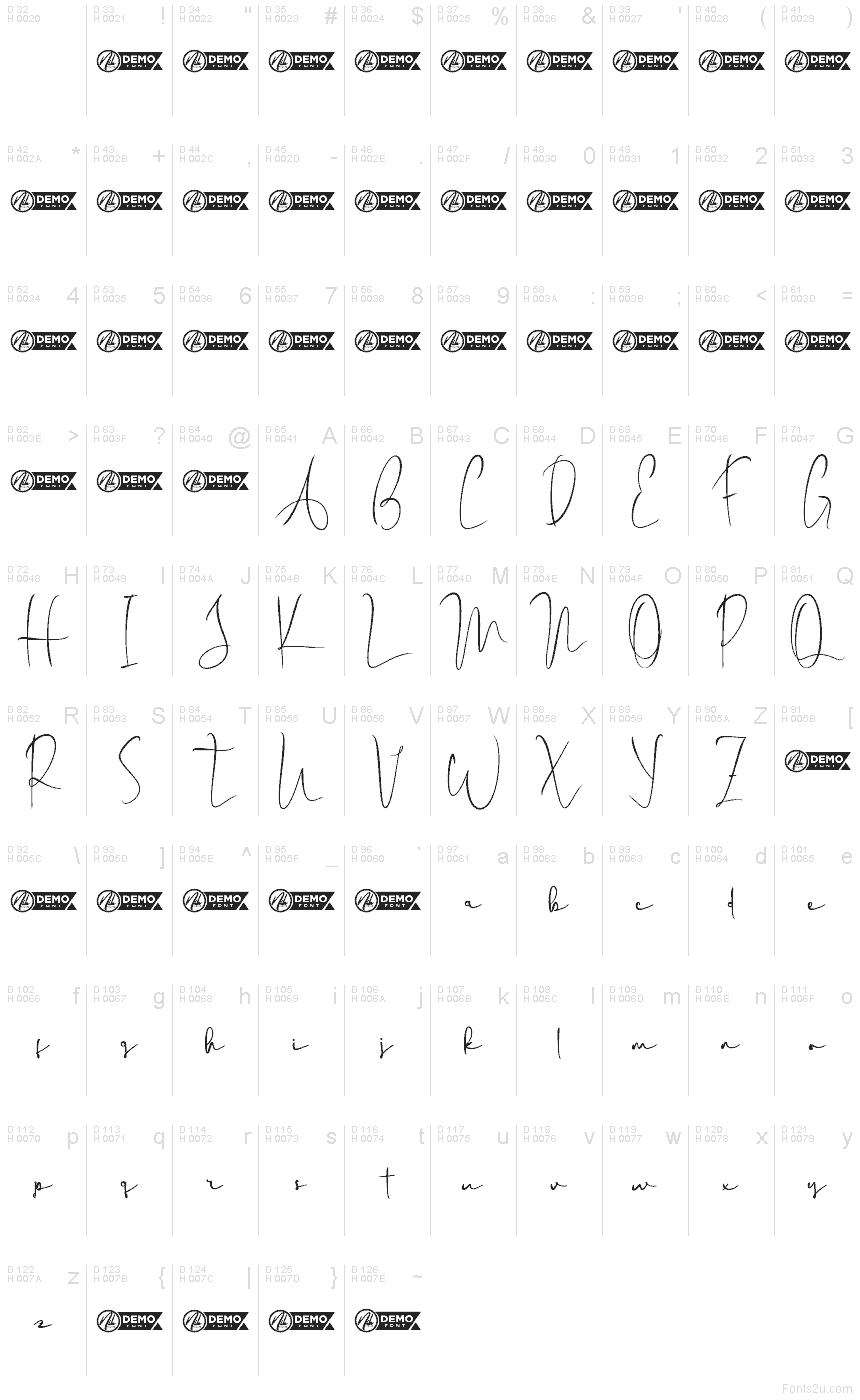
My Journal font by NihStudio is a free handwritten script typeface that captures the feel of ink gliding across smooth paper. Its tall, looping strokes and slightly scratchy texture make every word look like a personal note, not a digital file. The rhythm is loose and airy, giving designs a candid, unpolished charm that still feels stylish and intentional.
Using My Journal, this free font shines on journaling-style logos, quote graphics, wedding details, lifestyle blog headers, packaging for handmade products, and photographer or blogger watermarks. It works beautifully when you let it breathe-use generous letter spacing and pair it with a clean sans serif for body text so the script can whisper the headline in its own relaxed voice.